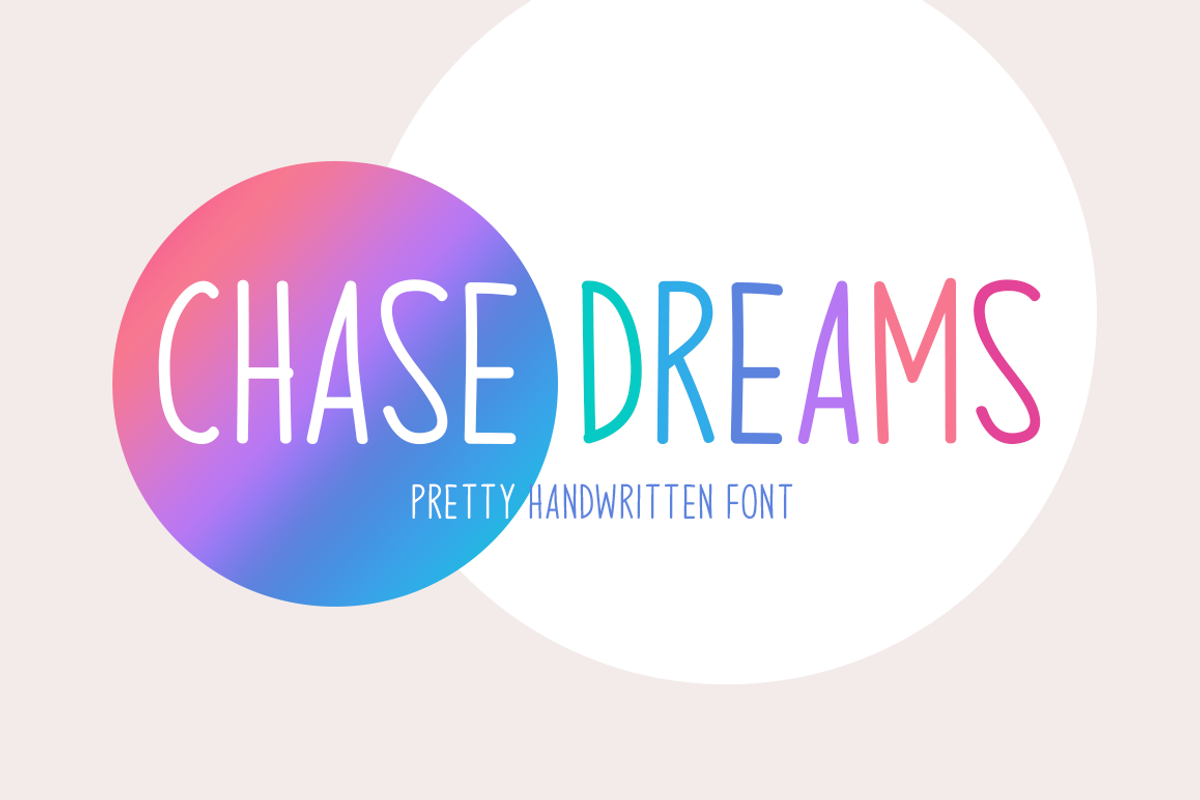
Chase Dreams Typeface Free Download
Chase Dreams Typeface Free Download is a dreamy, artistic, and versatile font crafted for creators who dare to dream big. Its unique curves and gentle flow bring a whimsical yet refined aesthetic to your designs — perfect for inspirational quotes, branding projects, wedding designs, lifestyle blogs, and anything that needs a sprinkle of magic.
This typeface combines elegance with emotion, making your message feel more personal, heartfelt, and memorable. Chase Dreams is more than just a font; it’s an invitation to imagine, to inspire, and to tell stories with soul. Whether you're designing for digital or print, its smooth lines and graceful rhythm give your work an elevated, polished finish.